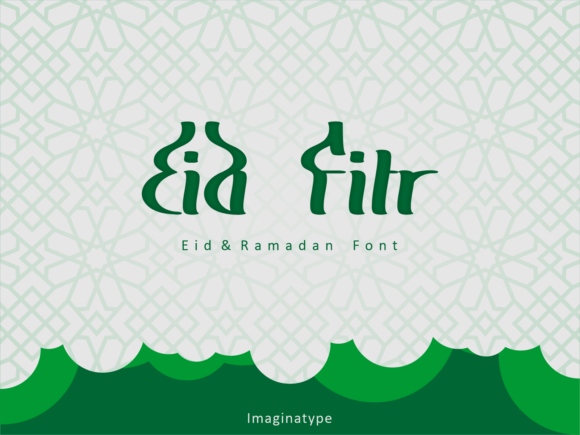
Eid Fitr Font
Eid Fitr is an Arabic-style calligraphy font. It features an elegant, luxurious and modern style. Use this font to congratulate your friends, family and everyone you know. It will fit into a huge spectrum of designs!